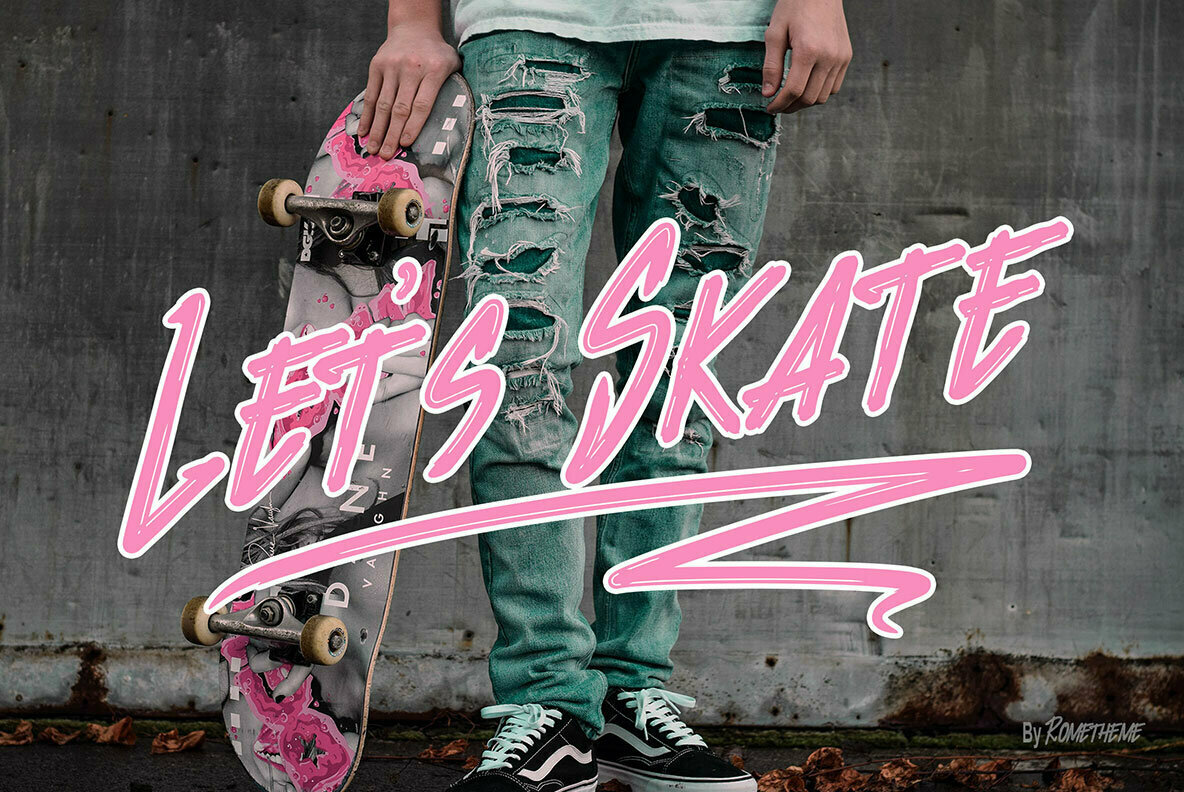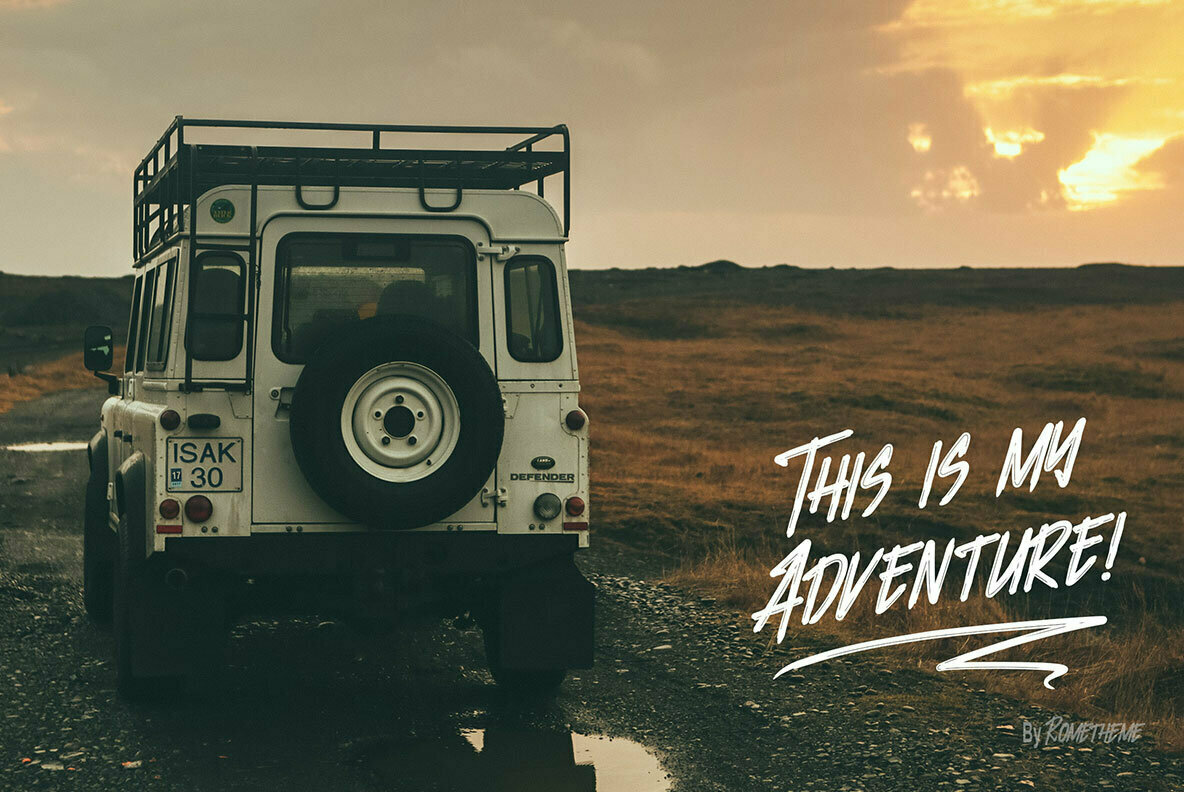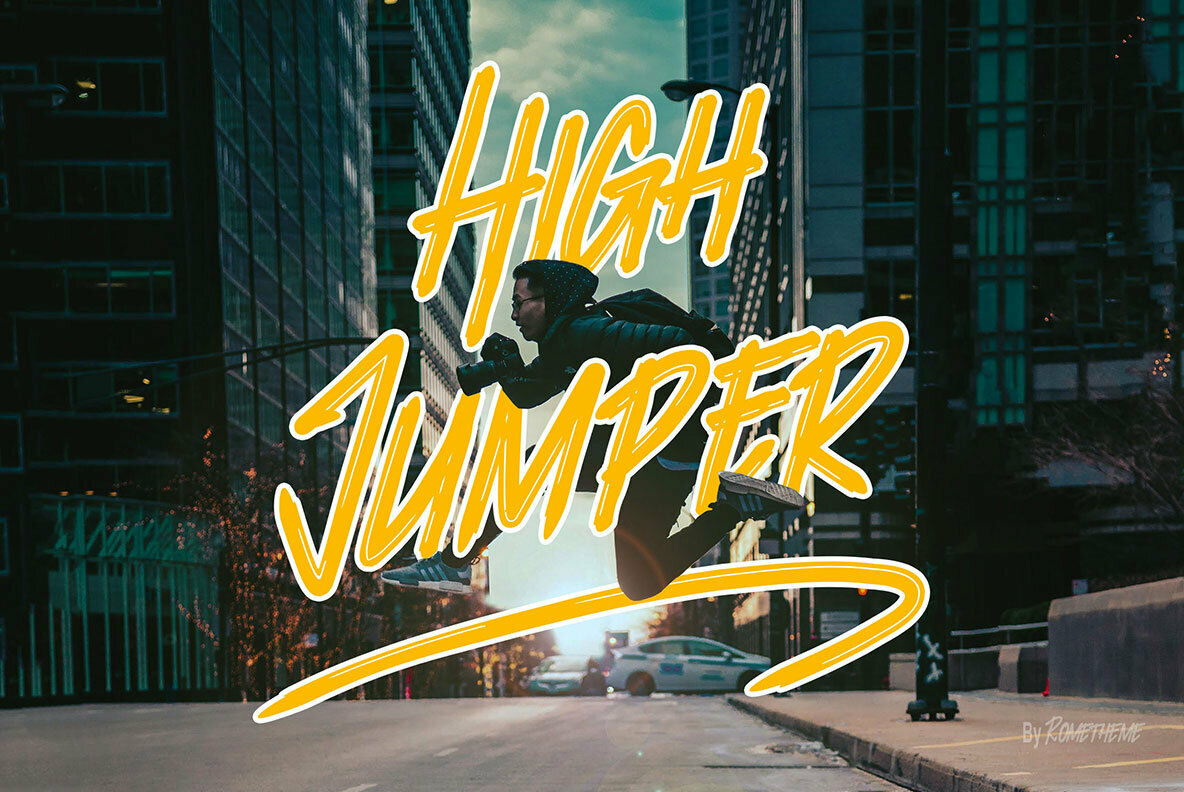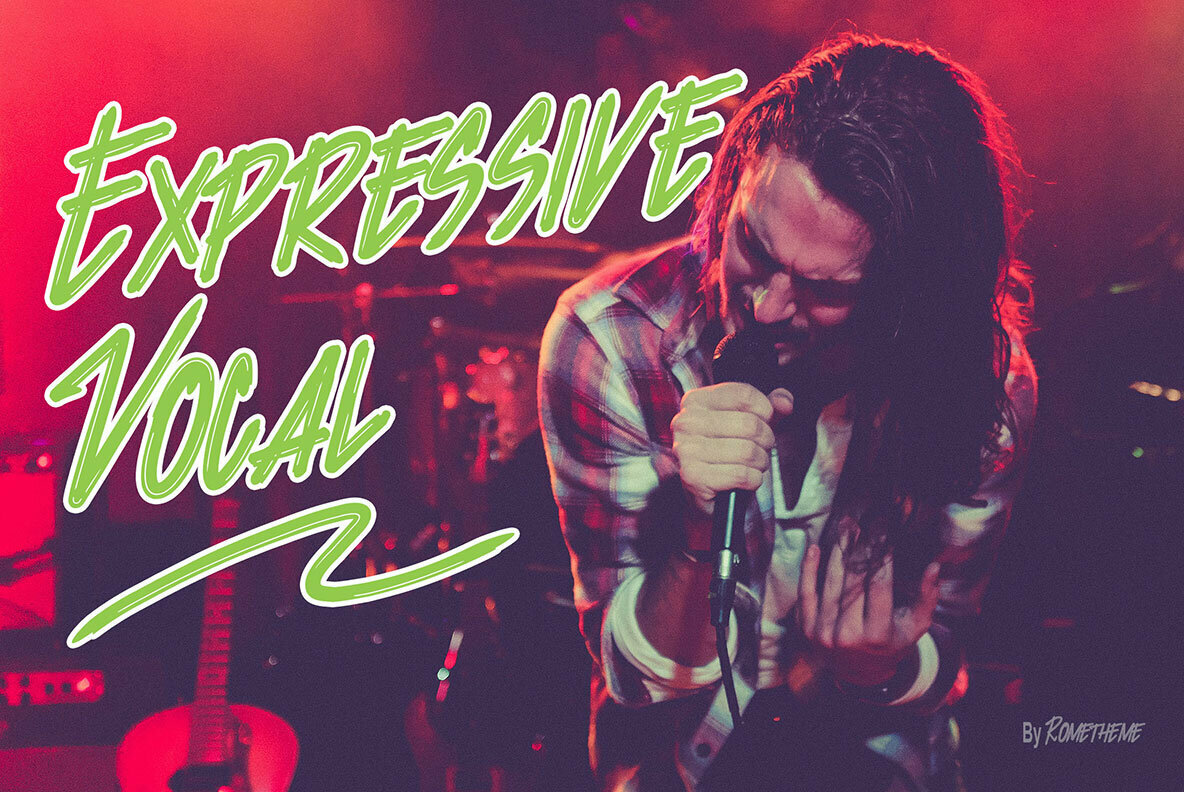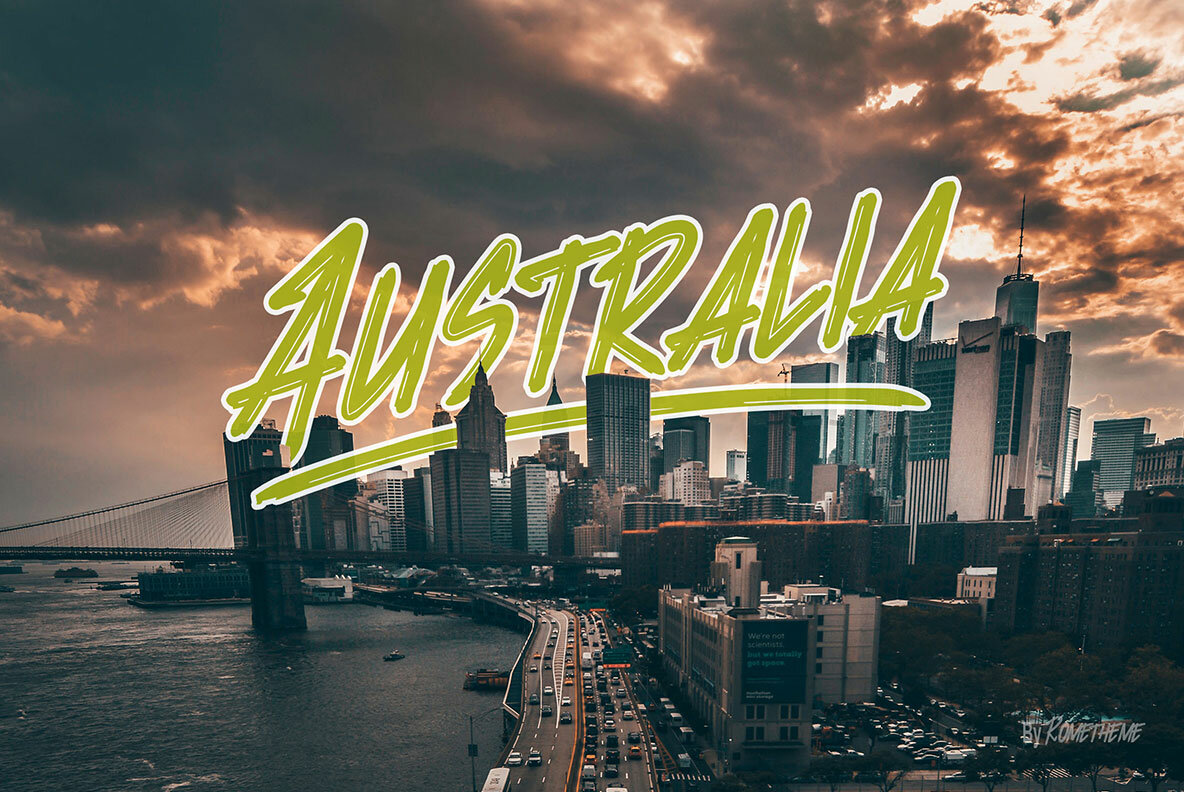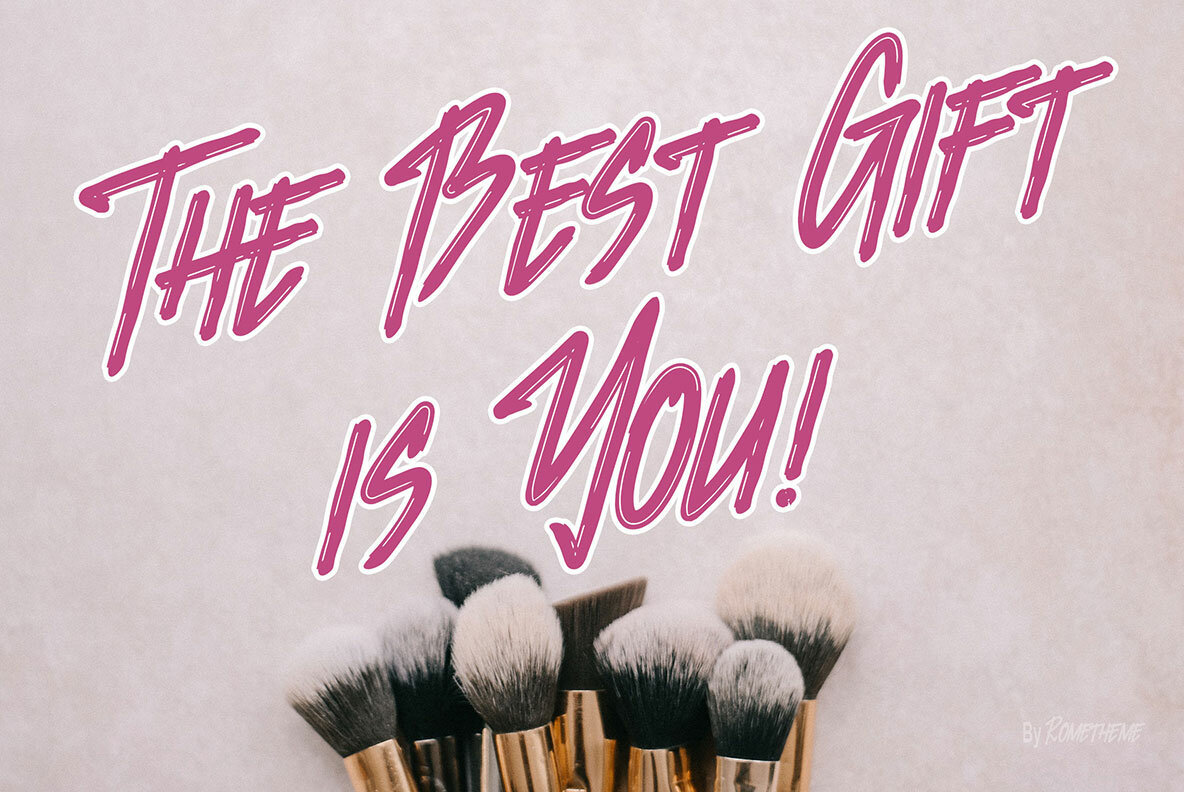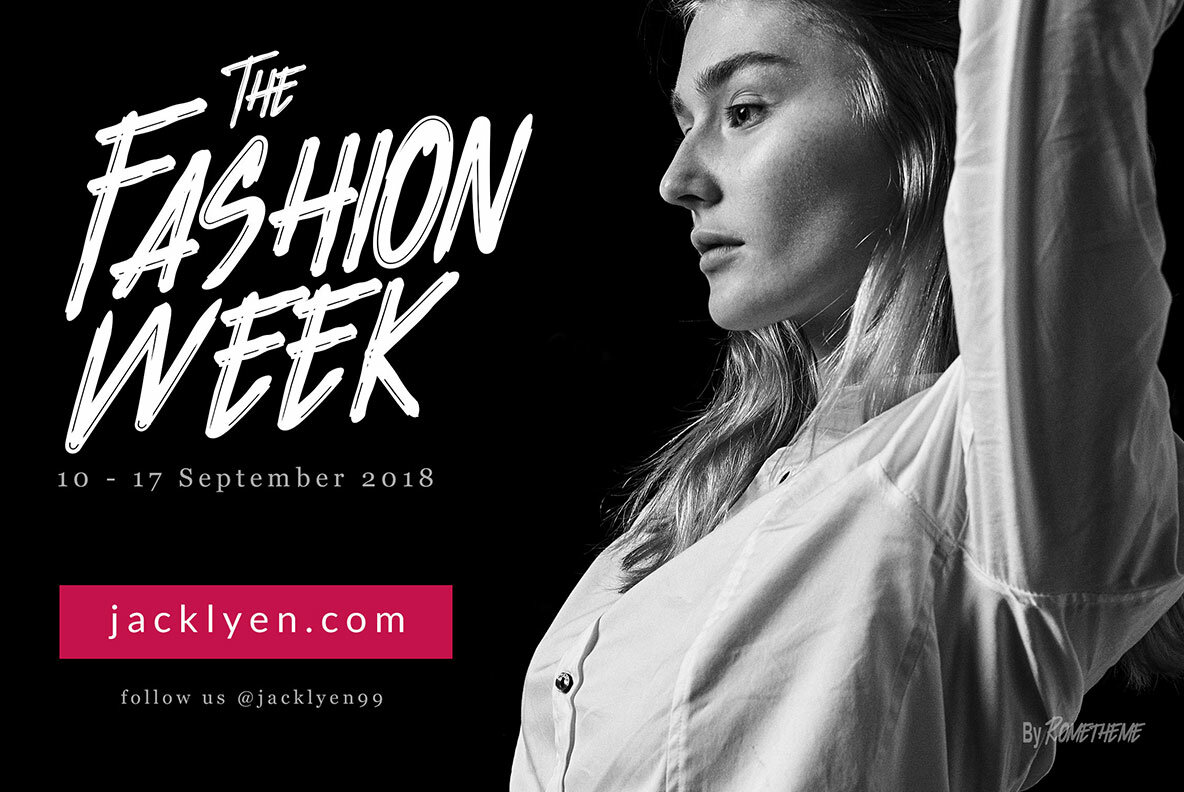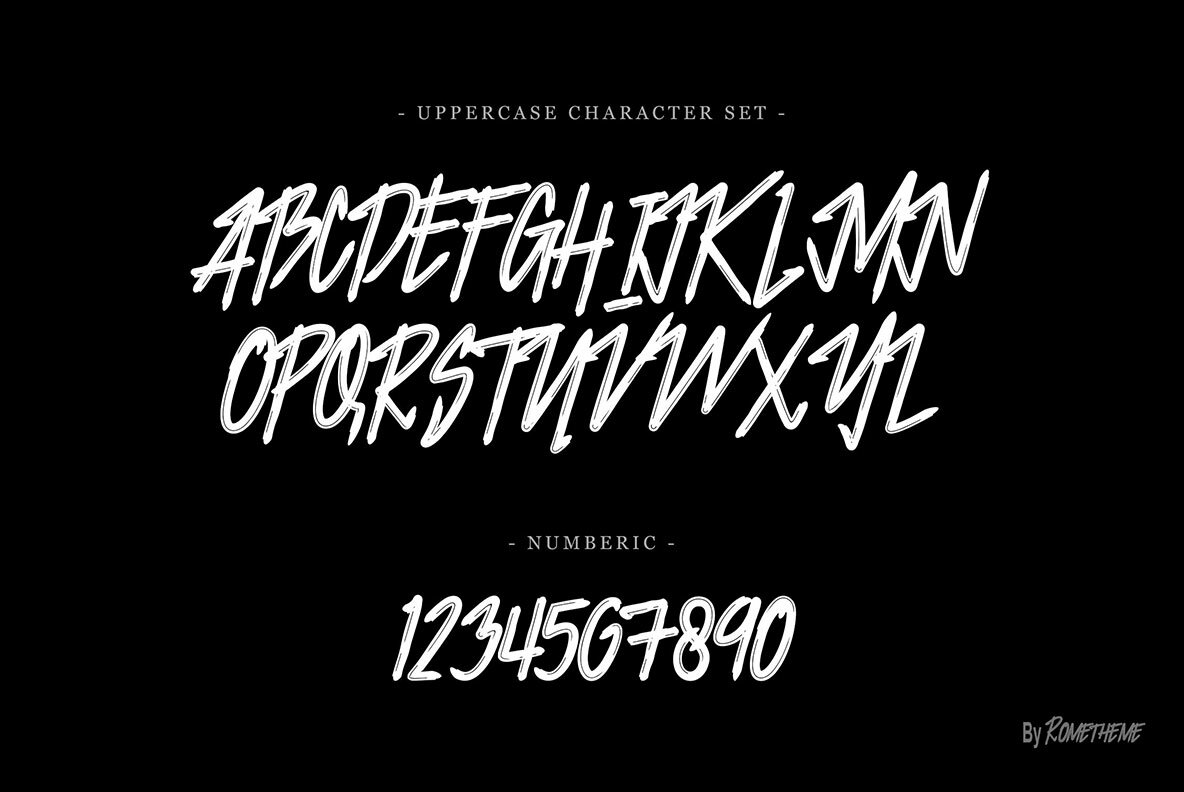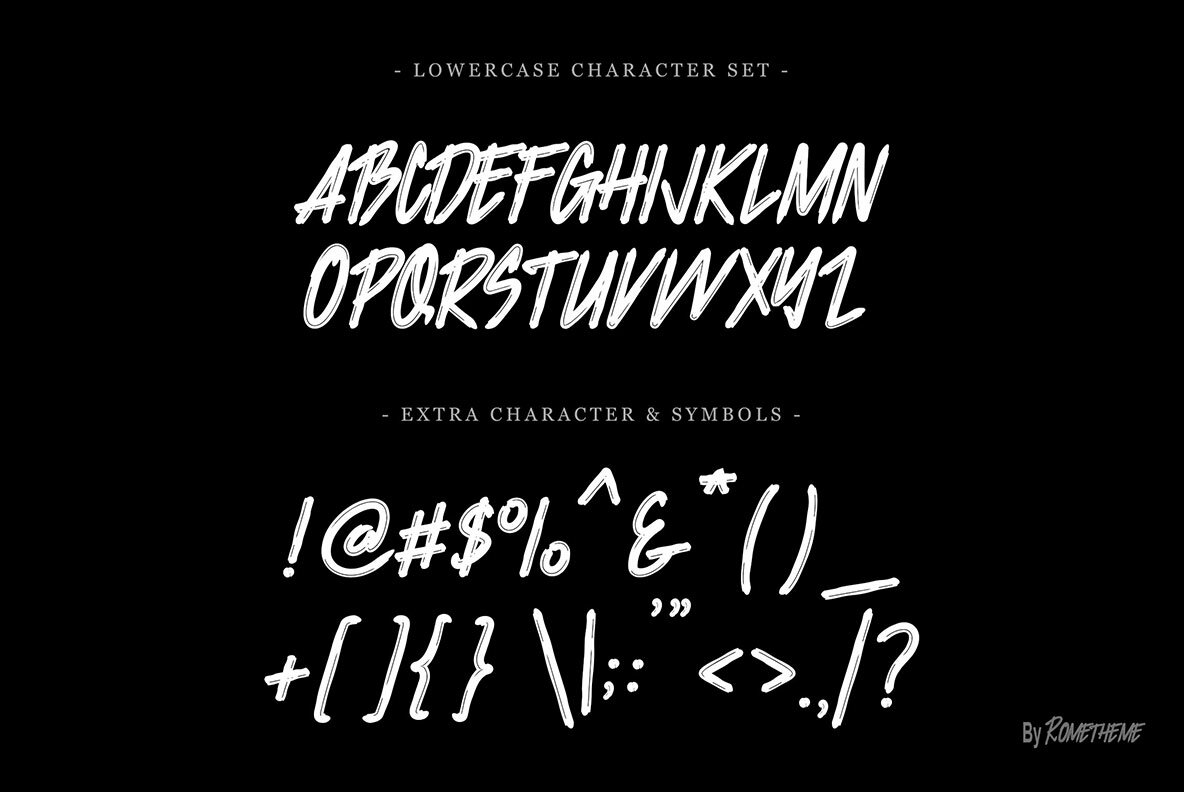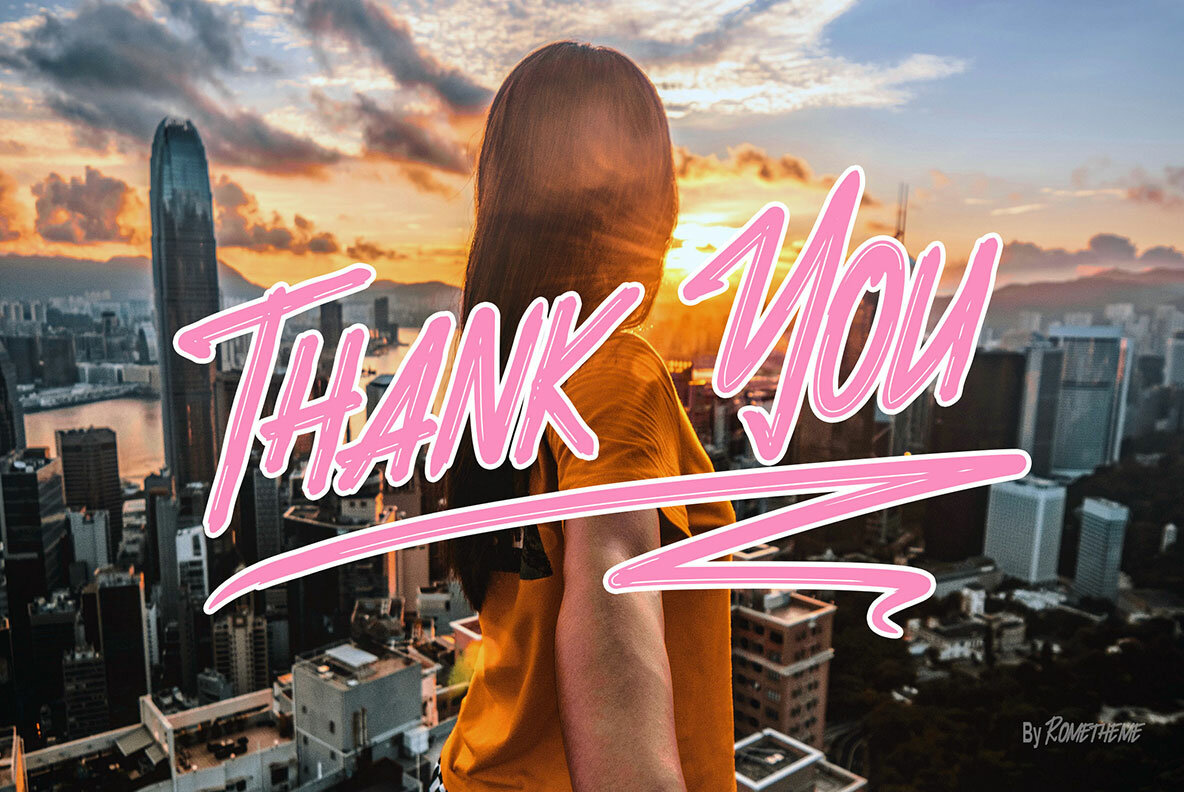
Jacklyen Font
Jacklyen
Immerse yourself in the sophisticated charm of Jacklyen, a modern hand-drawn typeface designed for those with a discerning eye. Elegant and stylish, this typeface offers both readability and a touch of class, ensuring it will elevate any professional project. Jacklyen proves indispensable for an array of design pursuits, encompassing everything from distinctive signatures and stylish watermarks on photography to captivating quotes and exquisite wedding invitations. It's equally at home in fashion, branding, and social media applications, where its unique character adds a distinctive flair to advertisements, business cards, logos, and more.Jacklyen: A Modern Hand-Drawn Typeface